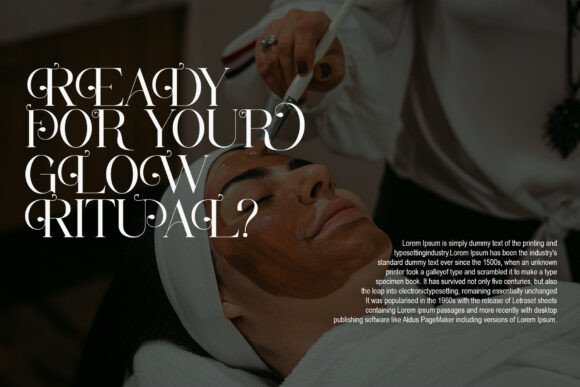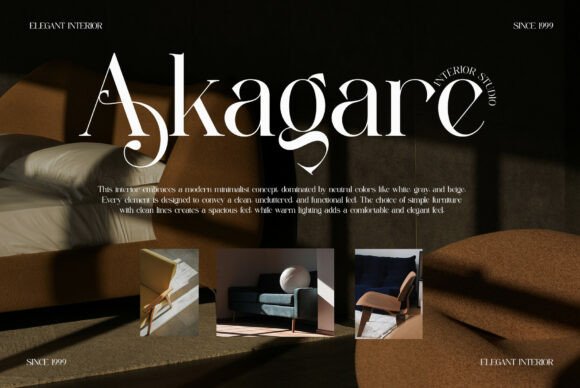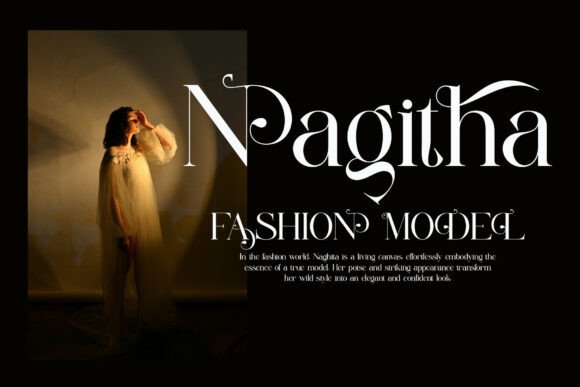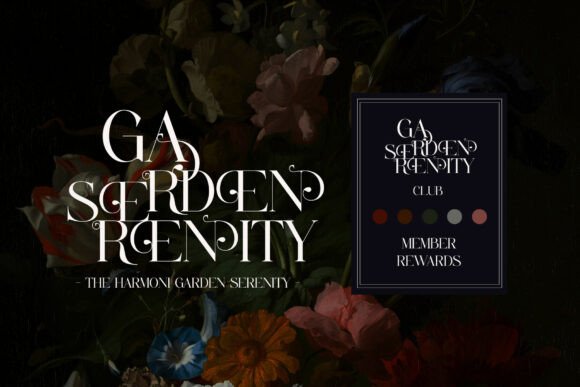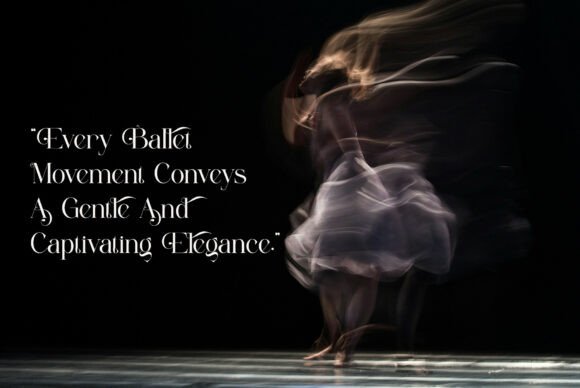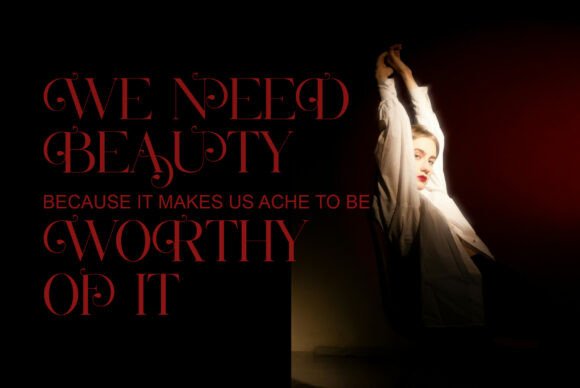
The Elegance of Belvind Font: A Designer’s Delight
I still remember the design project that led me to discover the stunning Belvind font. I was working on a floral branding project, and my client requested a typeface that exuded elegance, sophistication, and a touch of femininity. I scoured the internet for the perfect font, but nothing seemed to fit the bill. That was until I stumbled upon Belvind. With its bold yet refined ligatures, this elegant ligature serif modern font instantly captured my attention. In this article, I’ll share my experience with Belvind, its features, and how to make the most of it in your designs.
An Honest Review of Belvind Font
What I Love About Belvind ✨
- ✅ Elegant and refined ligatures that add a touch of sophistication to any design
- ✅ Perfect for upscale designs, including florals, fashion, and high-end branding
- ✅ Soft and graceful presence that elevates any project
- ✅ Classic serif style with a modern twist
- ⚠️ Limited availability of stylistic alternates, which might limit creative freedom
- ⚠️ Some users might find the font too ornate or delicate for certain projects
The Story Behind Belvind Font
Belvind was designed by a team of typographers who aimed to create a font that embodies the beauty of fresh blooms and timeless elegance. Inspired by classic serif styles, they crafted a modern typeface that pairs refinement with a touch of whimsy. The result is a font that feels both intentional and effortless, making it perfect for upscale designs.
Q: What is the best use for Belvind font?
A: Belvind is perfect for upscale designs, including florals, fashion, and high-end branding. Its elegant ligatures and refined presence make it ideal for projects that require sophistication and style.
Q: Does Belvind support OpenType features?